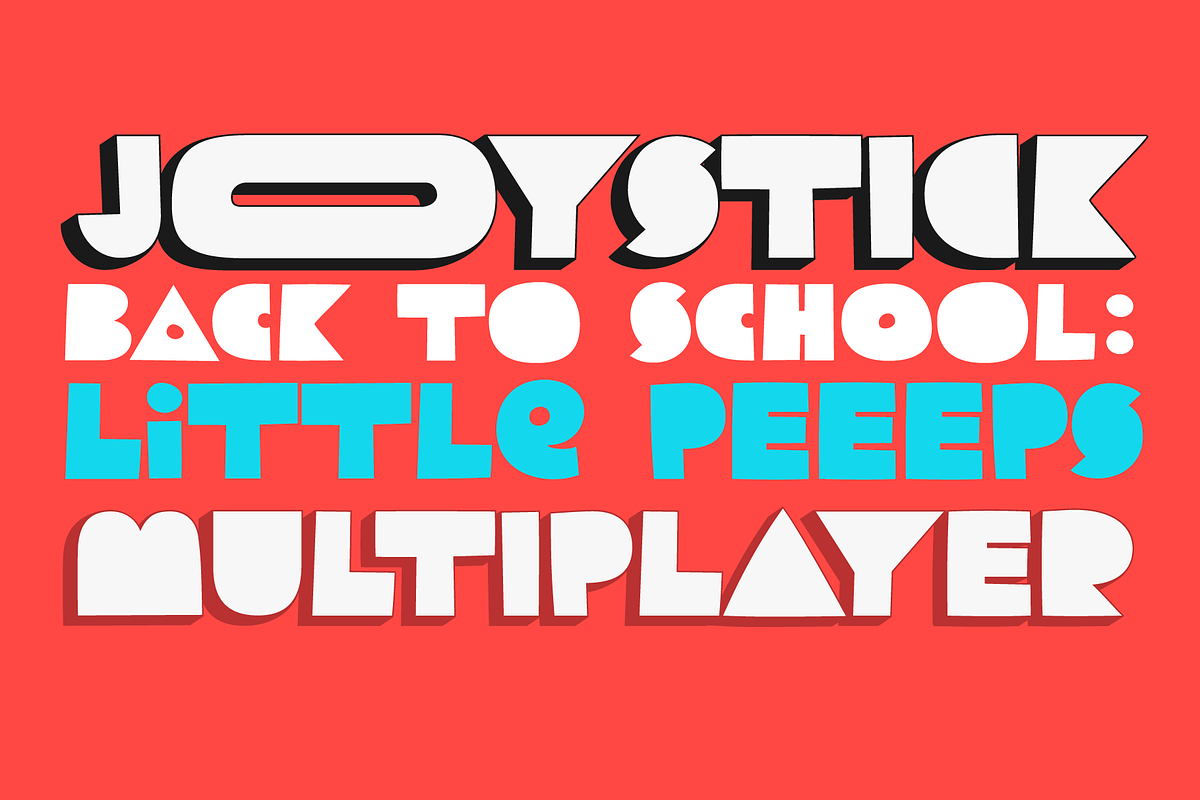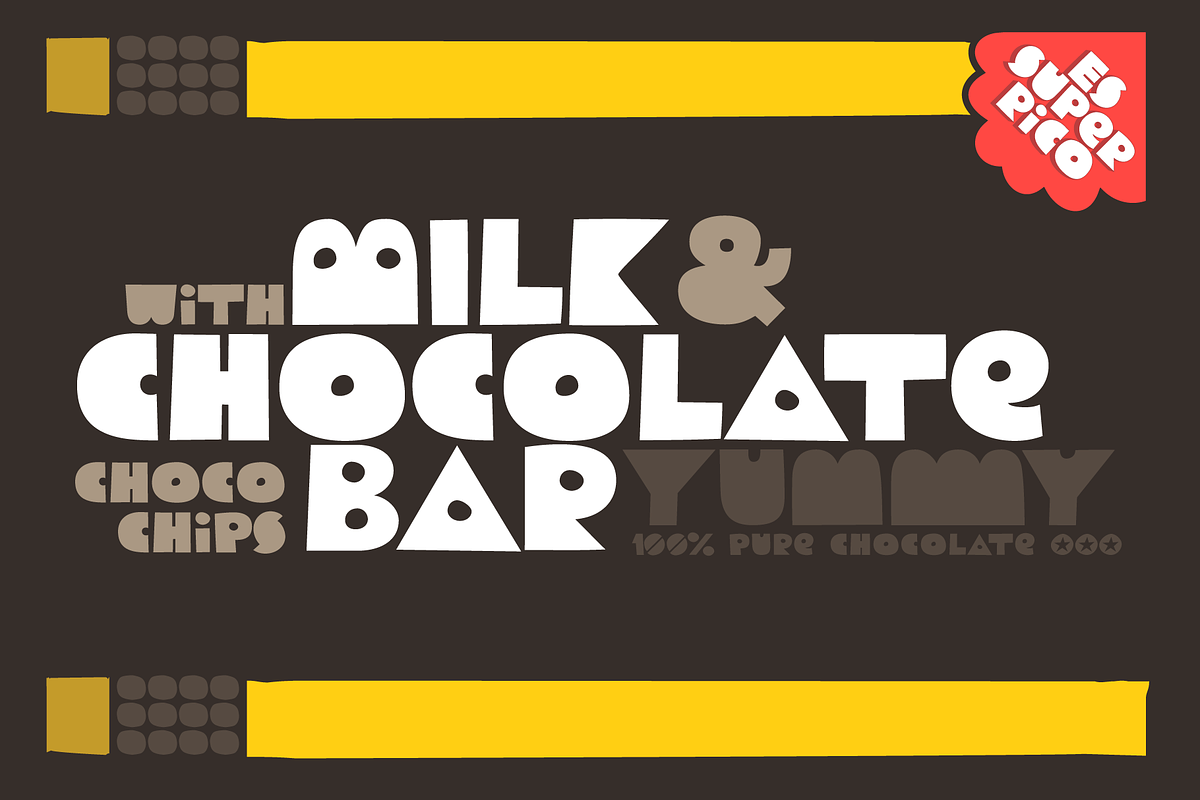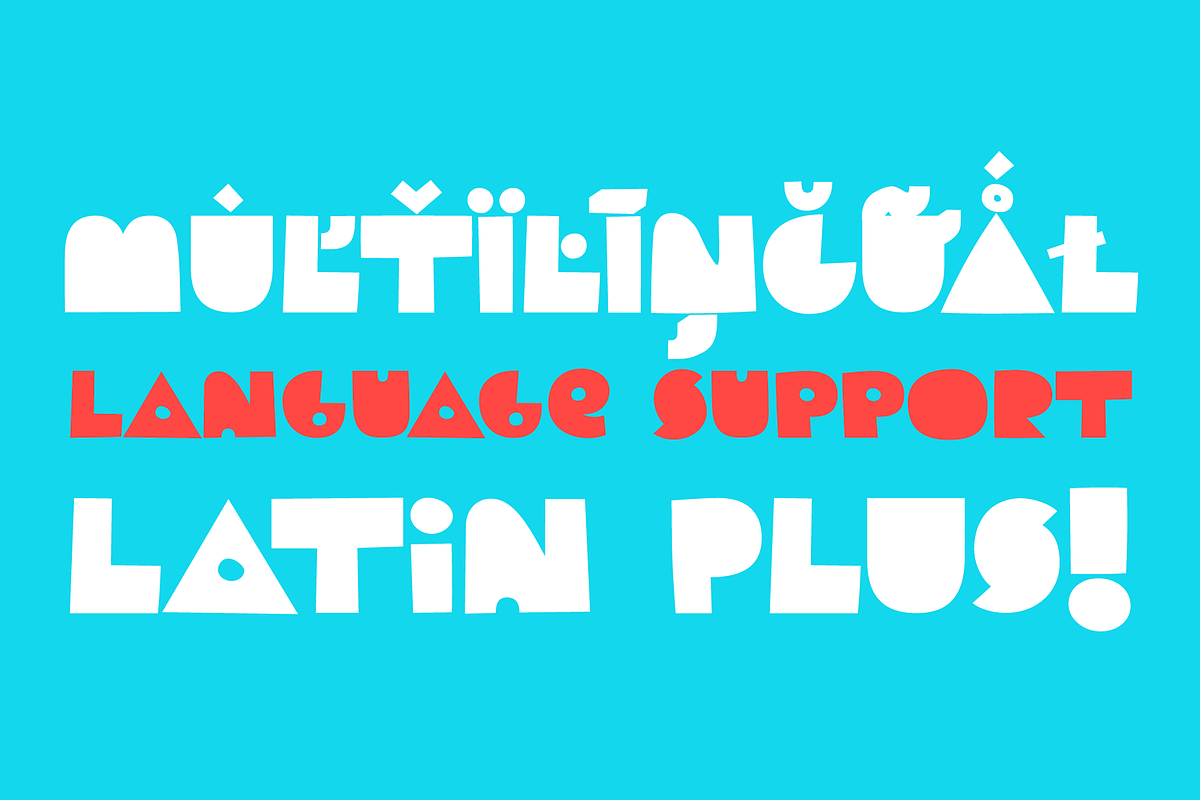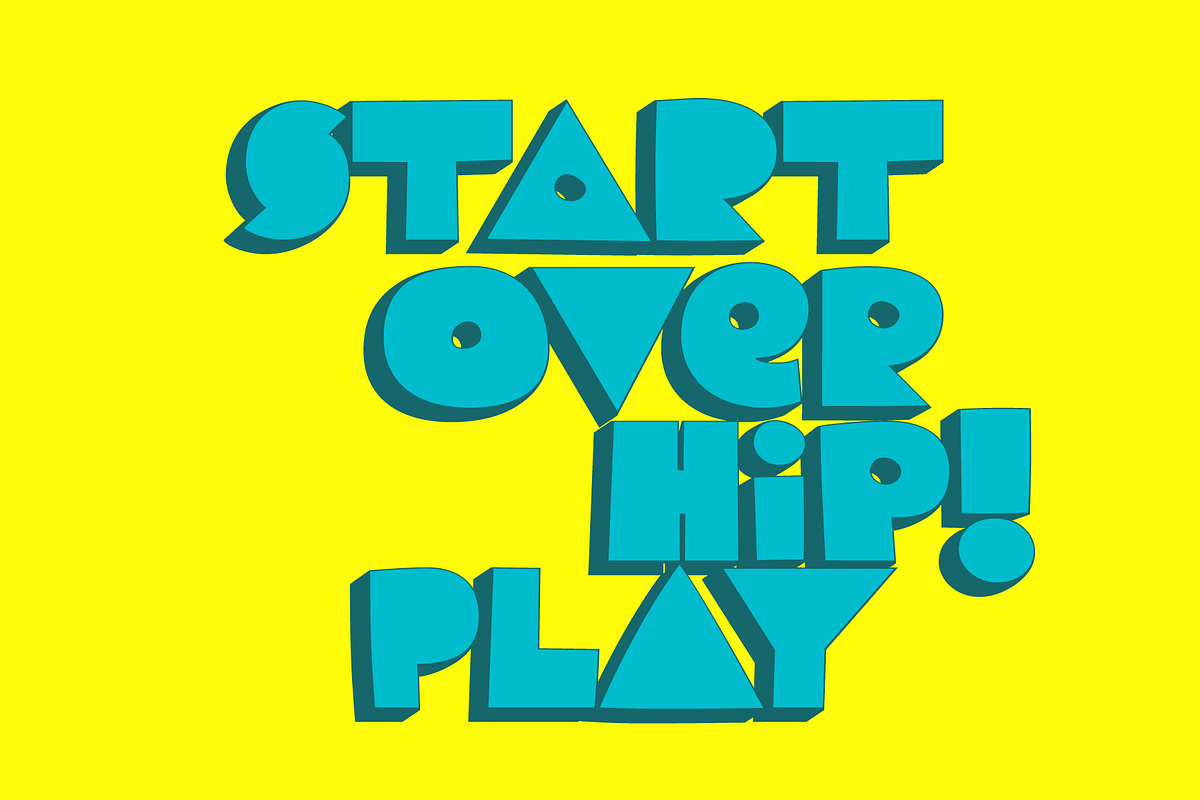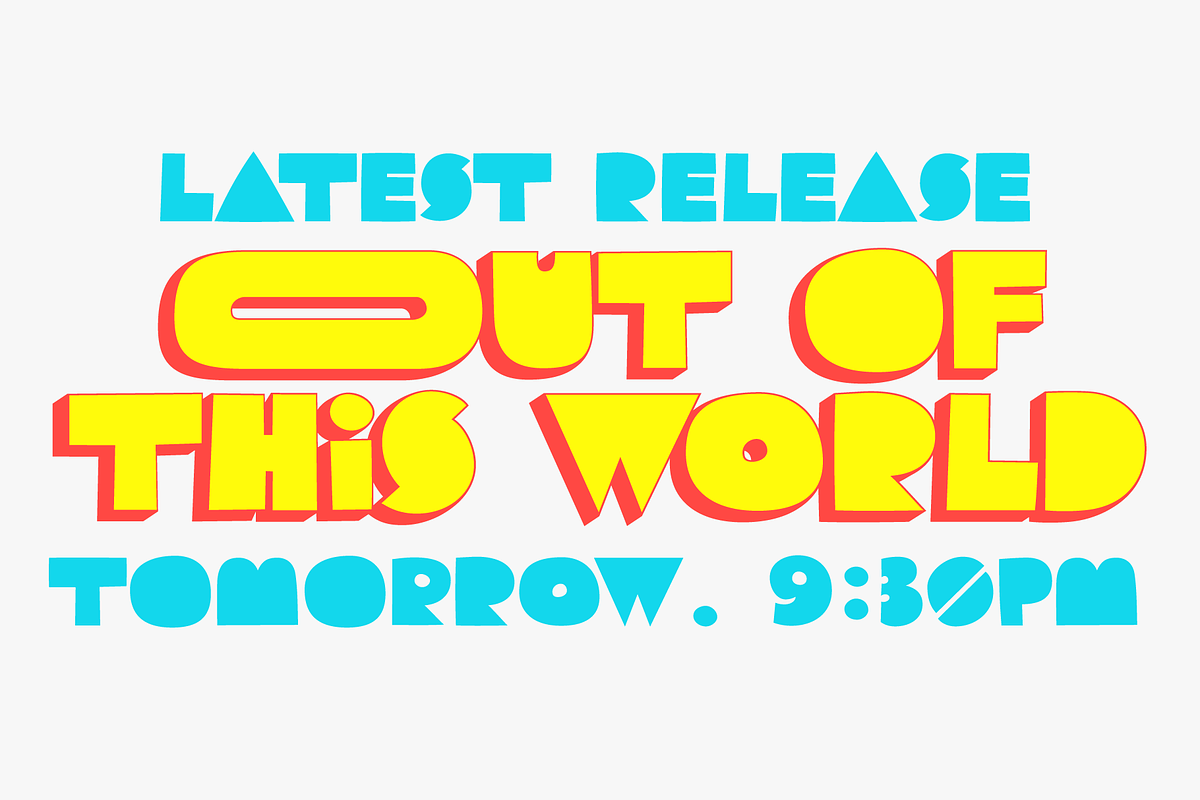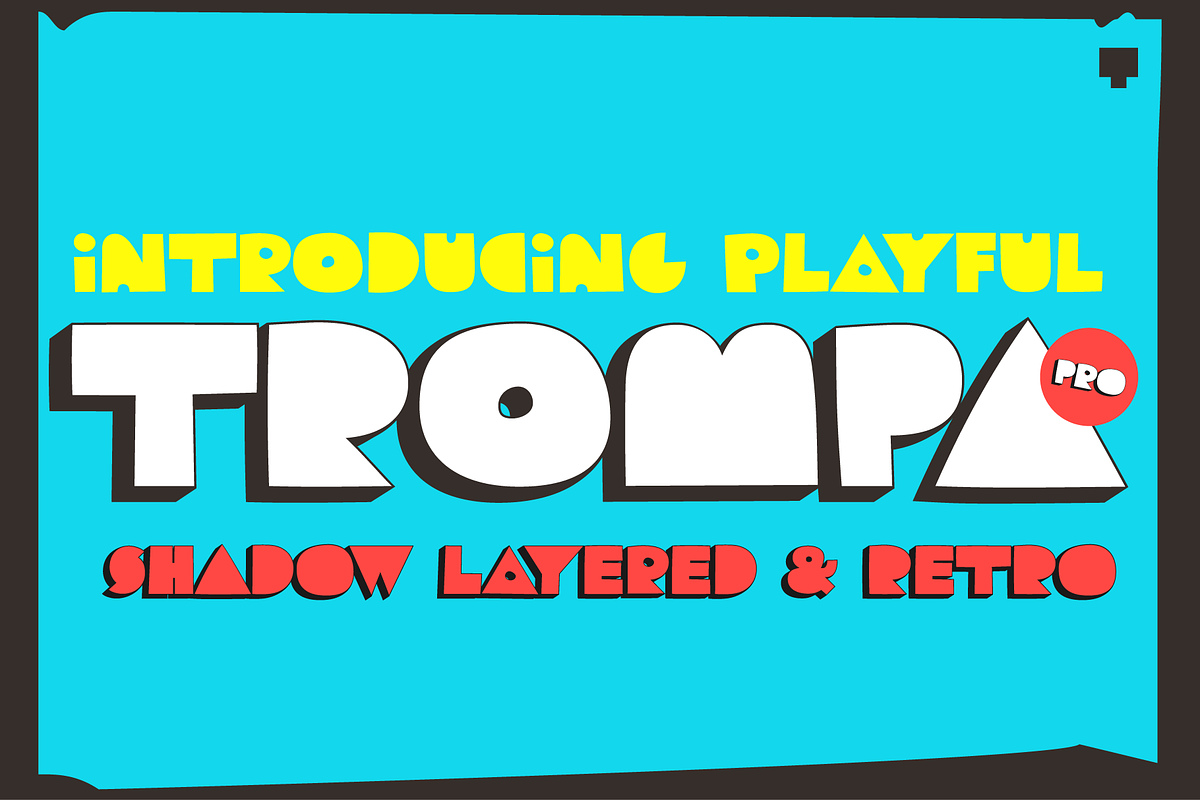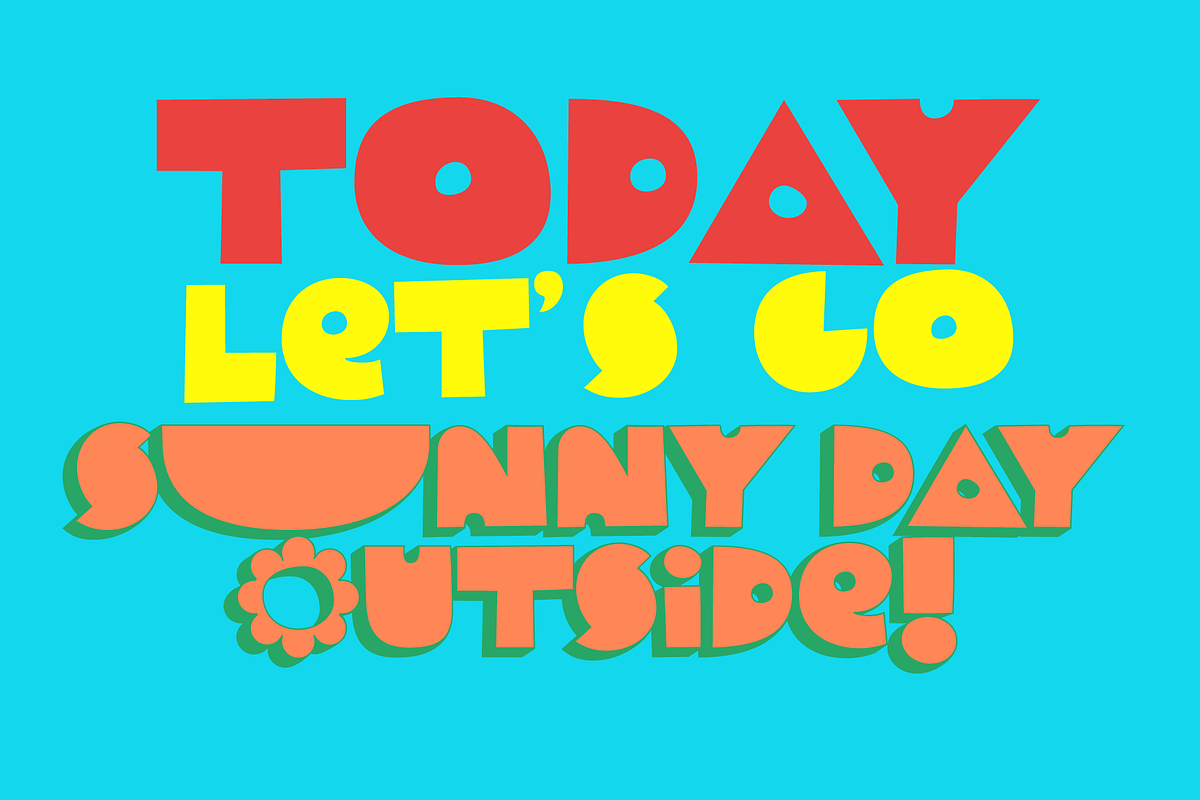
TOMO Trompa PRO
TOMO Trompa (PRO) is a geometric handmade face with a retro and fun touch. The fat shapes makes it unique with a fresh attitude for your creative projects. It also comes with a shadow style to combine and generate an awesome effect.